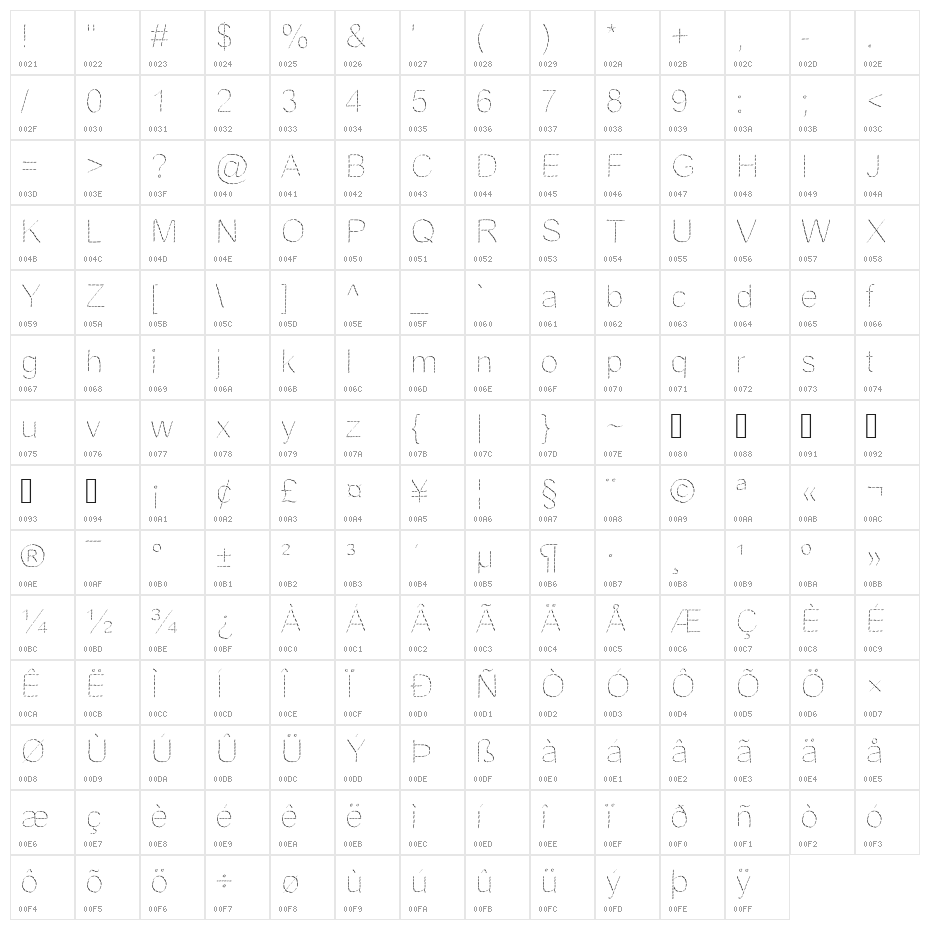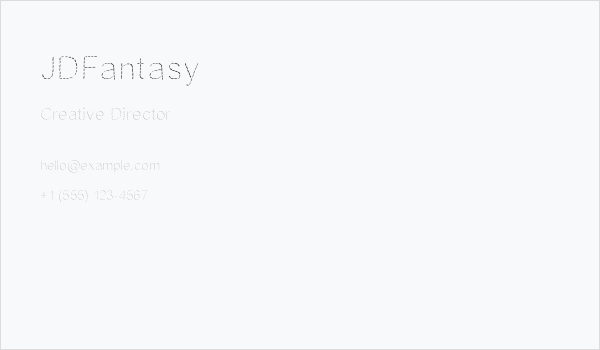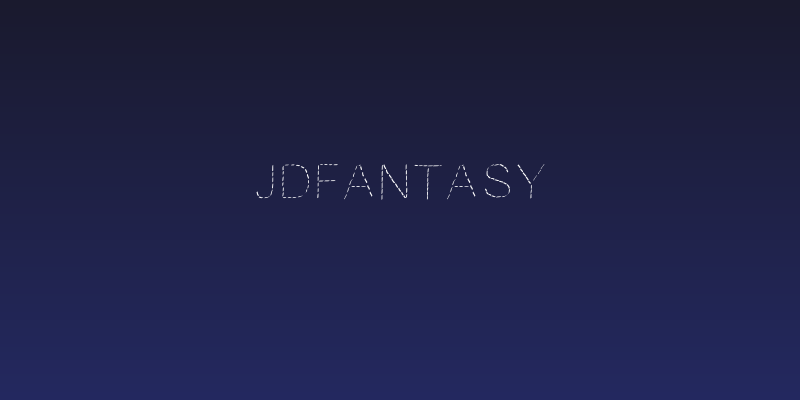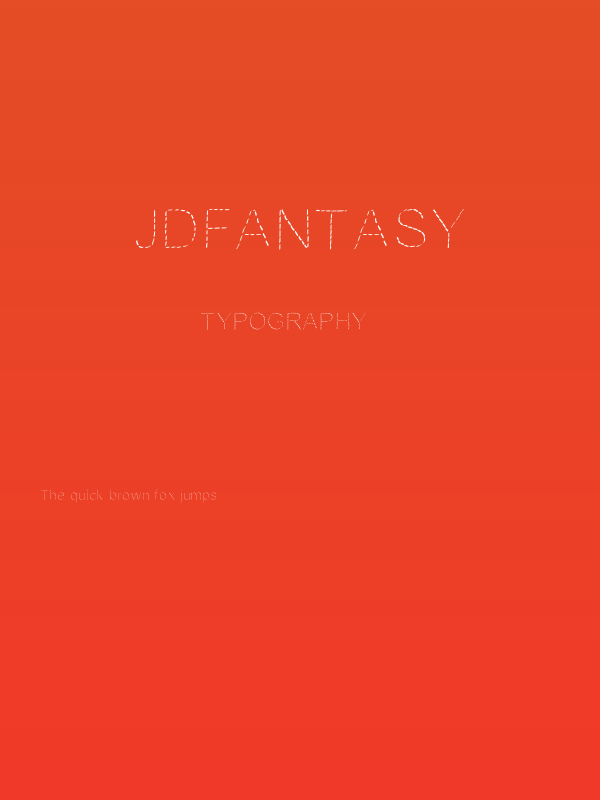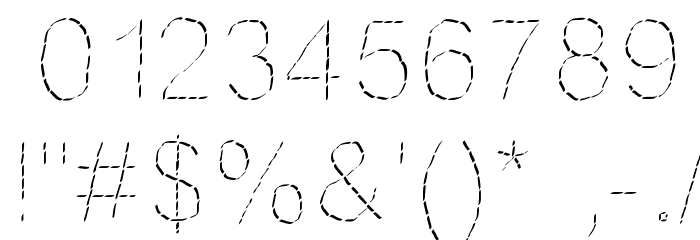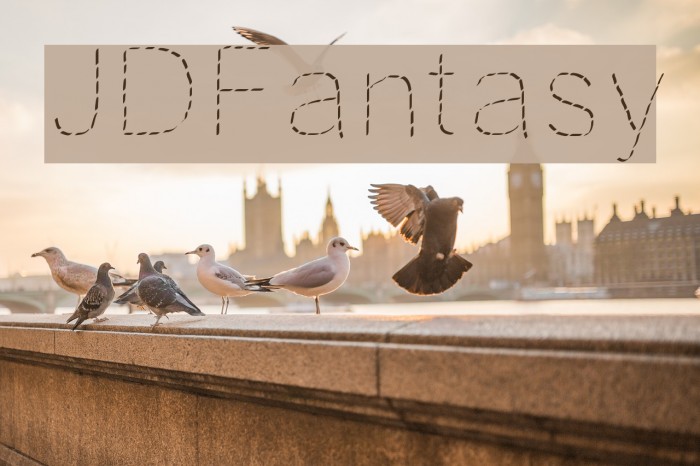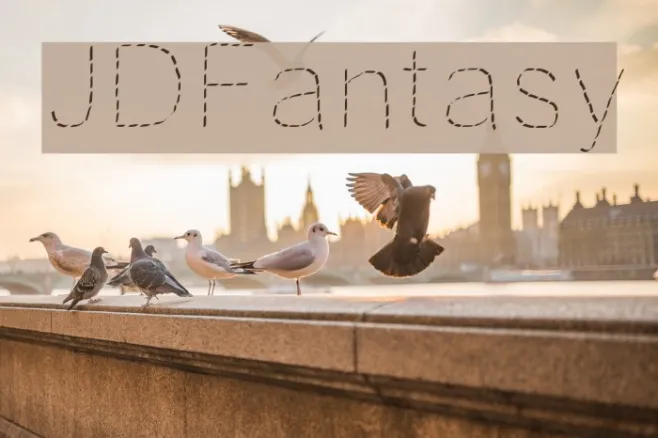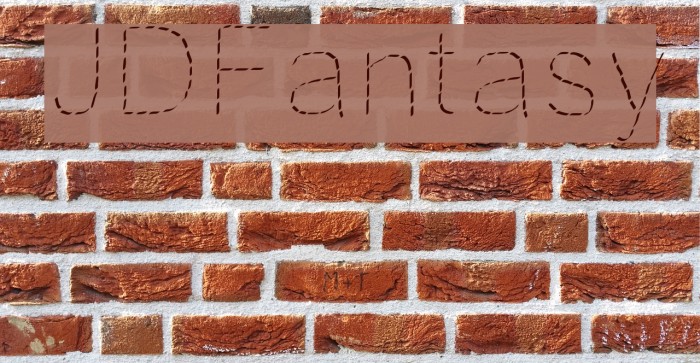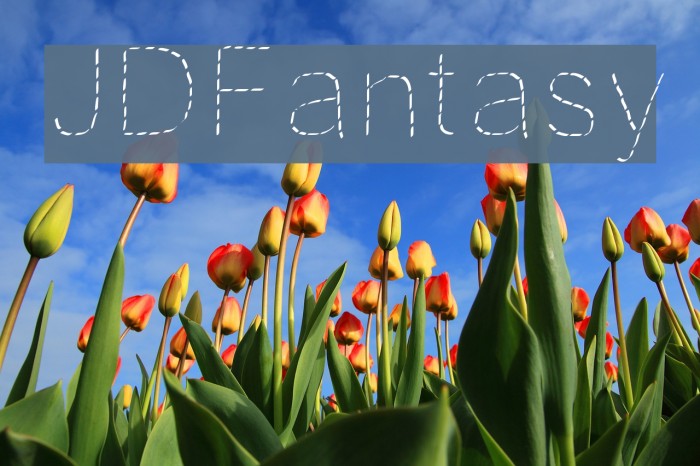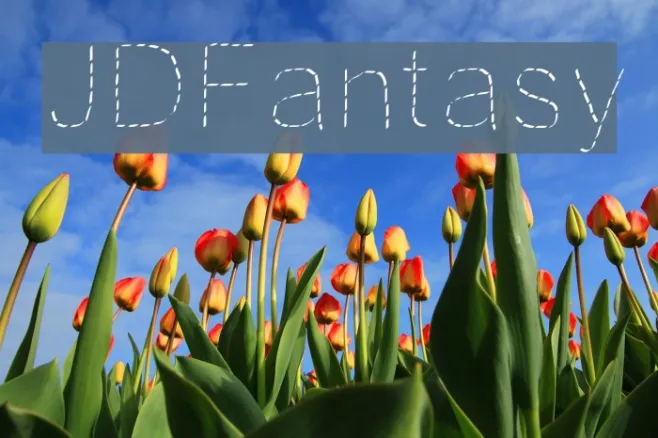
JDFantasy Font
JDFantasy Description
This font features a unique, decorative style with a dashed line effect that gives it a playful and creative appearance. The characters are evenly spaced and maintain a consistent height, contributing to a clean and organized look. The uppercase and lowercase letters are well-proportioned, and the numerals are distinct and easy to read. Special characters are included, enhancing its versatility. This font is ideal for projects that require a touch of whimsy and creativity, such as children's books, playful branding, or artistic posters.
| Proposed Projects | Children's books, playful branding, artistic posters, creative invitations. |